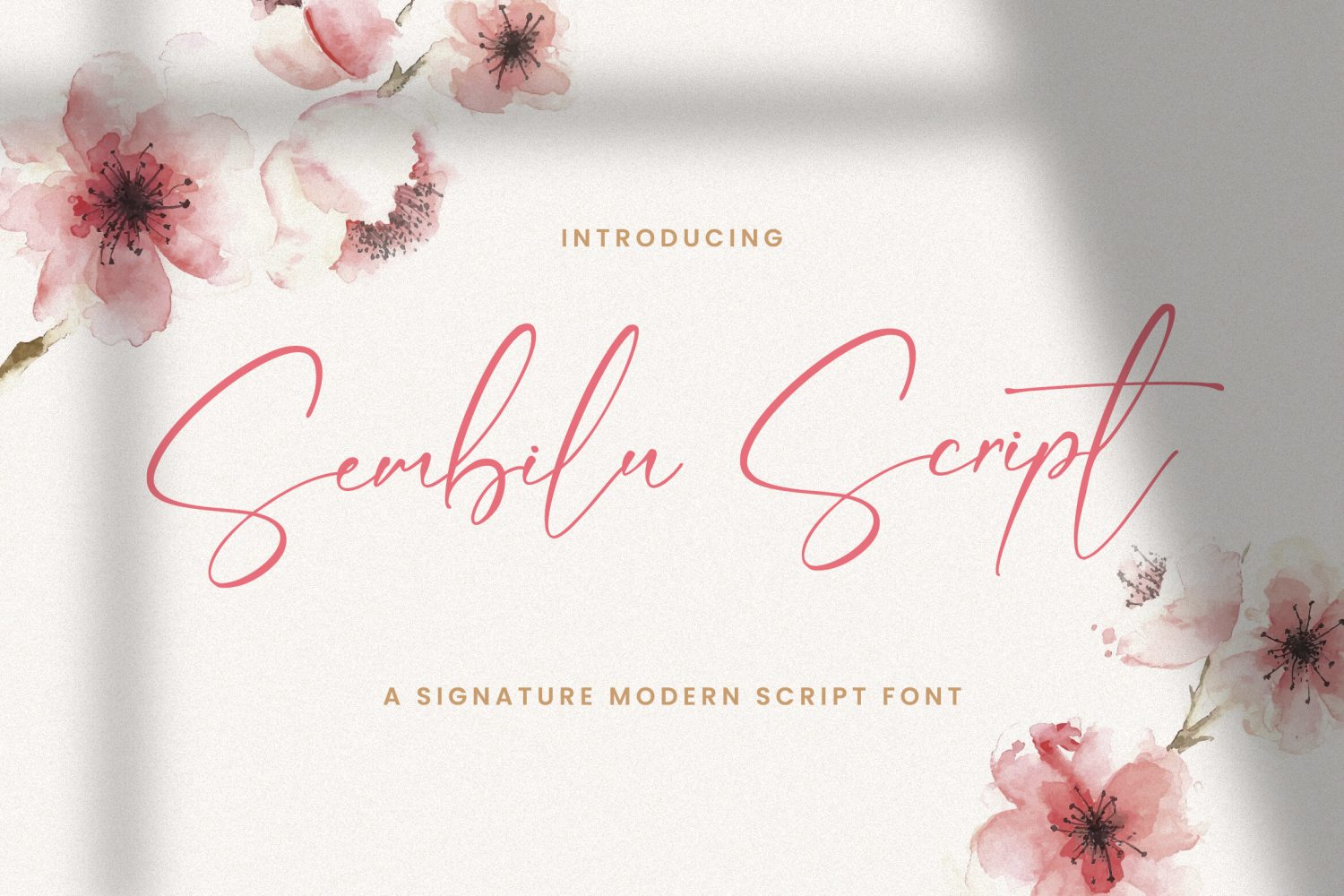
Sembilu Script Free Font
Introducing Sembilu Script Free Font, a captivating and graceful handwritten font that embodies delicacy, elegance, and fluidity. With its meticulously crafted and harmonious characters, this font seamlessly complements a diverse range of design projects. Infuse your most imaginative ideas with Sembilu Script and witness how it breathes life into them, adding a captivating allure. Experience the transformative power of this font as it brings your creations to life, making them truly come alive. Embrace the versatility of Sembilu Script and unlock the full potential of your creative endeavors. Elevate your designs with the mesmerizing charm of Sembilu Script today. This free typeface was designed by a talented StringLabs Creative. If you like it don’t forget to check out the full version.